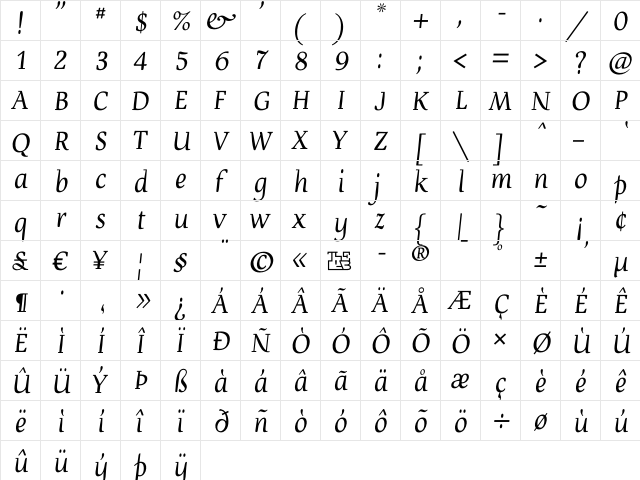
Devroye Regular
Design Context for Devroye Typeface
Devroye offers clean, dependable letterforms without strong stylistic allegiance, making it a practical choice for designers who need flexibility.
Pro Tip: Use Devroye in both headline and body roles to test its range before committing to a single application.